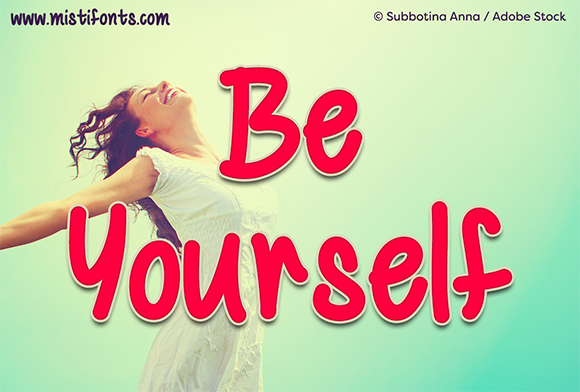
HomeScript FontsBe Yourself Font Script Fonts Be Yourself Font FacebookXPinterestWhatsApp About Be Yourself Font Be Yourself is a cute, confidence-boosting, handwritten font that is perfect for your craft and design projects! DOWNLOAD NOW People also explored Lovelyday Font Octavia Font Rectoverso Script Font Anjeline Vaughan Font Fantasy Script 6 Font The Enjoy Love Font Maracass Script Font Cutest Things Font Gavin Font 284 0 TagsBe Yourself Font Previous articleWatermelon Script FontNext articleGelPen Upright Pro Font LEAVE A REPLY Cancel reply Comment: Please enter your comment! Name:* Please enter your name here Email:* You have entered an incorrect email address! Please enter your email address here Website: Save my name, email, and website in this browser for the next time I comment. Personal Use Free Juliagar Personal Use Free Read more about this font Barokah Personal Use Free Read more about this font Gagalin Personal Use Free Read more about this font Susanna Personal Use Free Read more about this font BLOG The 10 Best Handwriting Fonts to Add Personality to Your Designs 10 of the Best Handwriting Fonts for Adding Personality to Your Designs There will undoubtedly be no other better choice than handwriting fonts to give... Top 7 Google Fonts Alternatives for Faster and Privacy-Friendly Web Design (2025) Using Fonts in Digital Marketing: Tips to Strengthen Your Brand Identity 5 Fonts That Will Dominate Design Trends in 2026